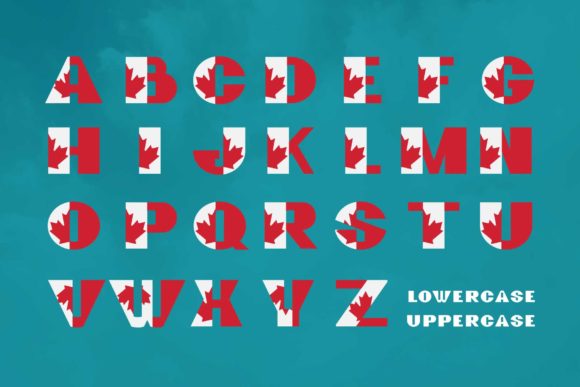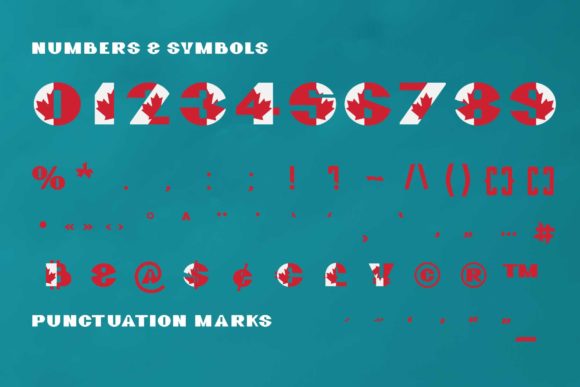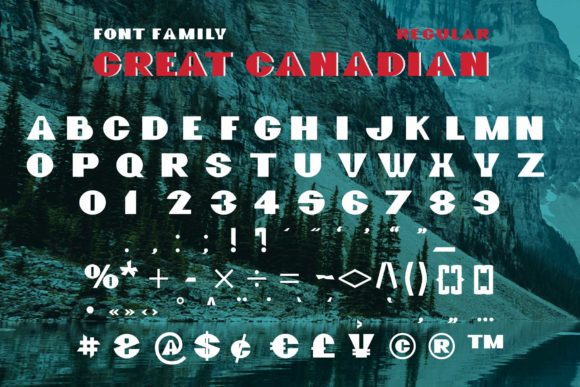
Introduction to Great Canadian Family Font
Remember that moment when you’re brainstorming ideas for a creative project, and suddenly, the perfect font pops into your mind? For designers, it’s a moment of pure joy, and it can make or break the entire design. For me, that moment came when I stumbled upon the Great Canadian Family Font – a stunning unique font family that embodies the spirit of Canada.
This beautiful font is a must-have for any designer looking to add a touch of Canadian charm to their design. With its bold feel and high-quality design, it’s the perfect addition to any creative project. Whether you’re working on a logo, a brochure, or a social media campaign, the Great Canadian Family Font is sure to make a statement.
Key Features of Great Canadian Family Font
- High-quality design: Great Canadian Family Font is a carefully crafted font that ensures a professional look for any creative project.
- Unique characteristics: Great Canadian Family Font features a unique blend of modern and classic elements, making it a standout choice for creative projects.
Honest Review: Great Canadian Family Font
I recently had the chance to work with the Great Canadian Family Font, and I must say it’s been a pleasant experience. The font’s high quality and versatility make it an excellent choice for any creative project.
Here are some aspects that I think work well with the font: ✨
- Unique and authentic design that captures the essence of Canadian culture
- Transparency in design allows for easy customization and pairing with other fonts
However, I do have some reservations about the font’s limitations: ⚠️
- Limited font size options, which can make it difficult to use in smaller text
- No bold or italic variations, which can limit its versatility in certain projects
Overall, I’m impressed with the Great Canadian Family Font, and I think it’s a great addition to any design resource. While it has its limitations, it’s a high-quality font that’s perfect for any creative project that needs a unique touch.
The Great Canadian Family Font is ideal for a wide range of creative projects, including logos, graphics, posters, and documents. Its high-quality design makes it perfect for business cards, brochures, and other marketing materials. Whether you’re designing for personal or professional use, the Great Canadian Family Font is a great choice.